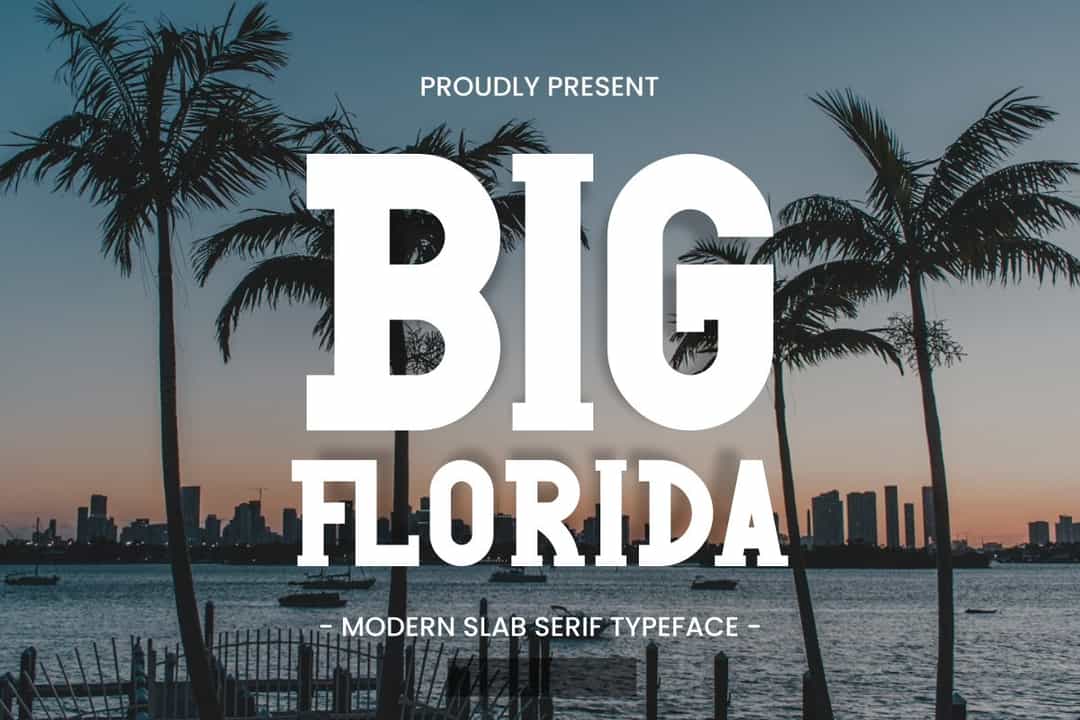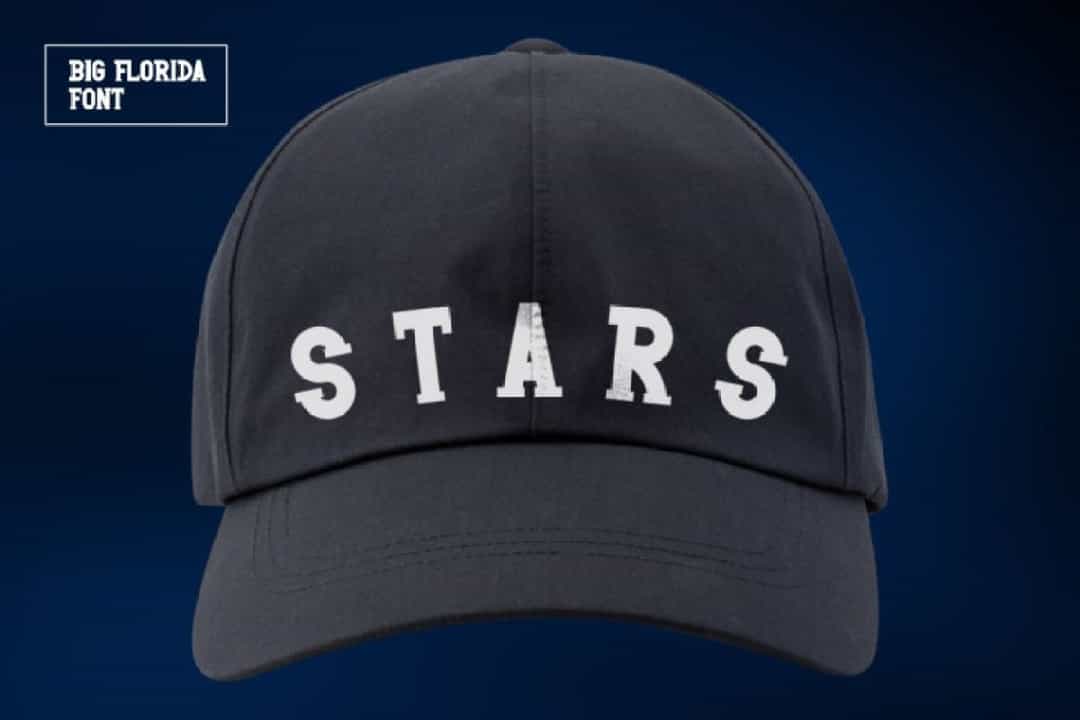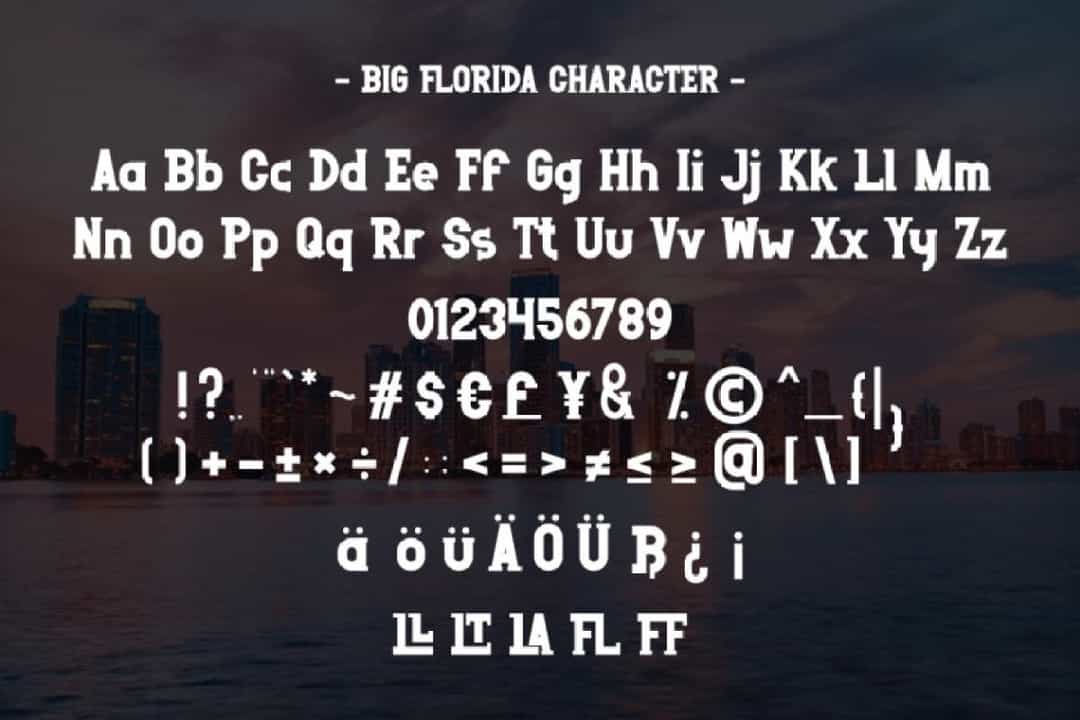
Big Florida font belongs to a slab serif category font family with an eye-catching style, perfect for many creative designs such as labels and t-shirts, sports item logos, typography branding logotypes, business and book covers, magazines or any other novel concepts.